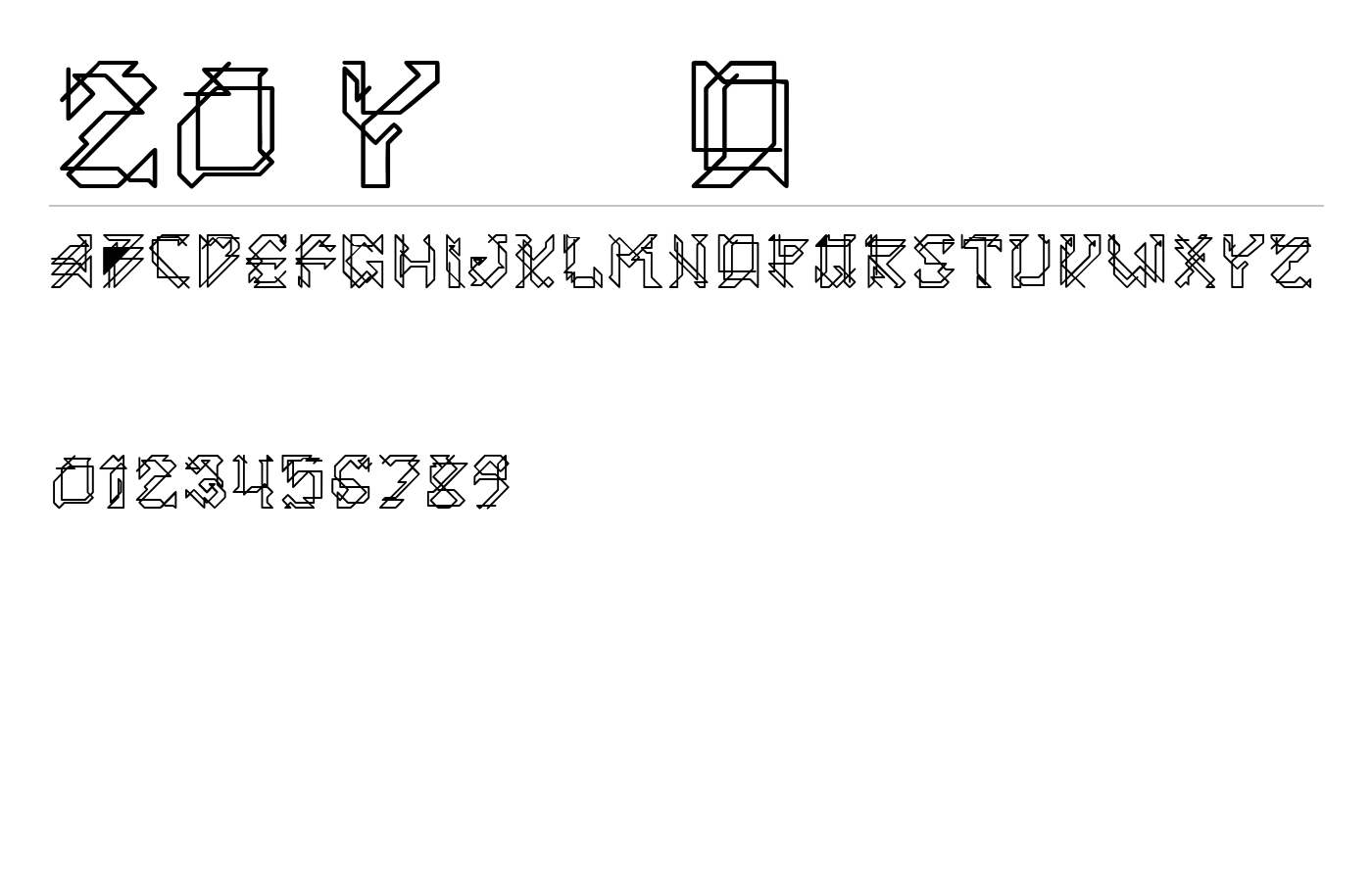
20 Years Overthinking is a highly experimental sans serif font characterized by its intricate, geometric line work that creates a layered and chaotic appearance. With its sharp angles, overlapping strokes, and modular construction, it evokes a futuristic and edgy vibe, making it ideal for avant-garde design projects, tech-oriented branding, and artistic editorial headlines where a bold, unconventional statement is desired. This font’s complexity and distinct personality make it less suited for body text but perfect for capturing attention in modern, creative contexts.
20 Years Overthinking Font
About 20 Years Overthinking Font